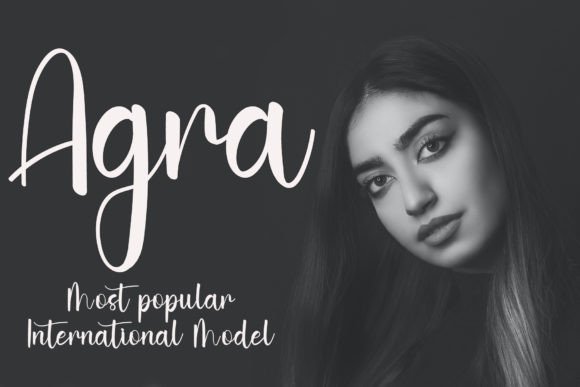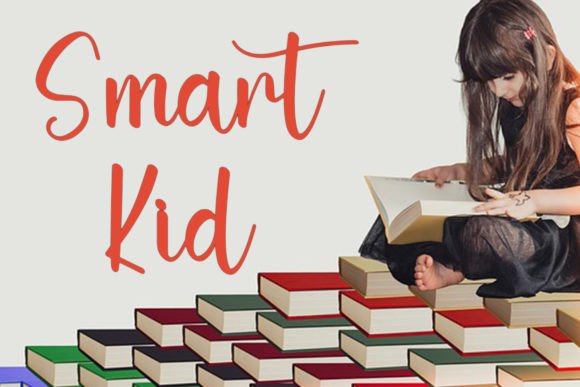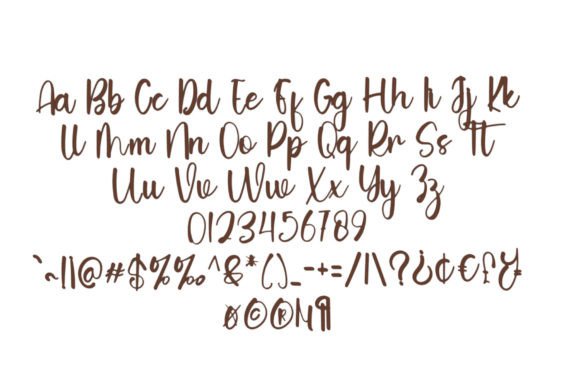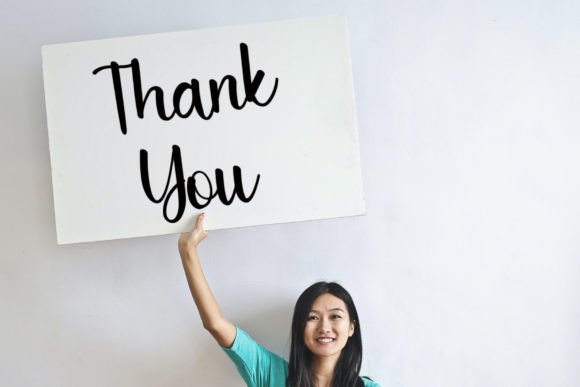
Introducing Challeng Font: Elevate Your Designs with Elegance
Are you on the hunt for a font that exudes elegance and sophistication? Look no further than Challeng Font, a stunning handwritten font that is sure to capture your heart. With its unique blend of classic charm and modern flair, Challeng Font is the perfect addition to any design project. In this article, we’ll dive into the world of Challeng Font and explore its features, benefits, and uses.
The Essence of Challeng Font
Challeng Font is a beautifully crafted handwritten font that boasts an elegant touch. Its distinct and timeless style makes it an excellent choice for designers and crafters looking to add a personal touch to their work. Whether you’re creating a logo, branding materials, or social media graphics, Challeng Font is sure to make your designs stand out.
Key Features of Challeng Font
- Unique and Distinctive Style: Challeng Font features an incredibly distinct and timeless style that sets it apart from other fonts.
- Elegant Touch: The font’s elegant touch makes it perfect for designs that require a touch of sophistication.
- Handwritten: Challeng Font is a handwritten font, giving it a personal and organic feel.
- Versatile: The font is versatile and can be used for a wide range of design projects, from logos and branding materials to social media graphics and more.
Benefits of Using Challeng Font
So, why choose Challeng Font for your design projects? Here are just a few benefits of using this beautiful font:
- Adds Elegance to Your Designs: Challeng Font’s elegant touch instantly elevates your designs, making them look more sophisticated and refined.
- Stand Out from the Crowd: With its unique and distinctive style, Challeng Font helps your designs stand out from the crowd and grab attention.
- Perfect for Branding: The font’s timeless style makes it perfect for branding materials, such as logos, business cards, and letterheads.
- Easy to Read: Despite its elegant touch, Challeng Font is easy to read, making it perfect for body text and other written content.
Uses of Challeng Font
Challeng Font is a versatile font that can be used for a wide range of design projects, including:
- Logos and Branding Materials: Use Challeng Font to create stunning logos, business cards, and letterheads that exude elegance and sophistication.
- Social Media Graphics: Add a touch of elegance to your social media graphics, such as Facebook posts, Instagram stories, and Twitter headers.
- Web Design: Use Challeng Font to create beautiful website headers, titles, and body text that will engage and delight your visitors.
- Print Design: Challeng Font is perfect for print design projects, such as brochures, flyers, and posters.
Tips for Using Challeng Font
Here are a few tips for using Challeng Font to get the most out of this beautiful font:
- Pair it with Other Fonts: Experiment with pairing Challeng Font with other fonts to create a unique and visually appealing combination.
- Use it for Headings and Titles: Challeng Font is perfect for headings and titles, where its elegant touch can really shine.
- Experiment with Colors: Try out different colors and color combinations to see how they interact with Challeng Font.
In conclusion, Challeng Font is a stunning handwritten font that is sure to elevate your designs with its elegant touch. With its unique and distinctive style, versatility, and ease of use, Challeng Font is the perfect addition to any design project. Whether you’re a designer, crafter, or DIY enthusiast, Challeng Font is sure to inspire and delight. So why wait? Fall in love with Challeng Font today and create spectacular designs that will leave a lasting impression!